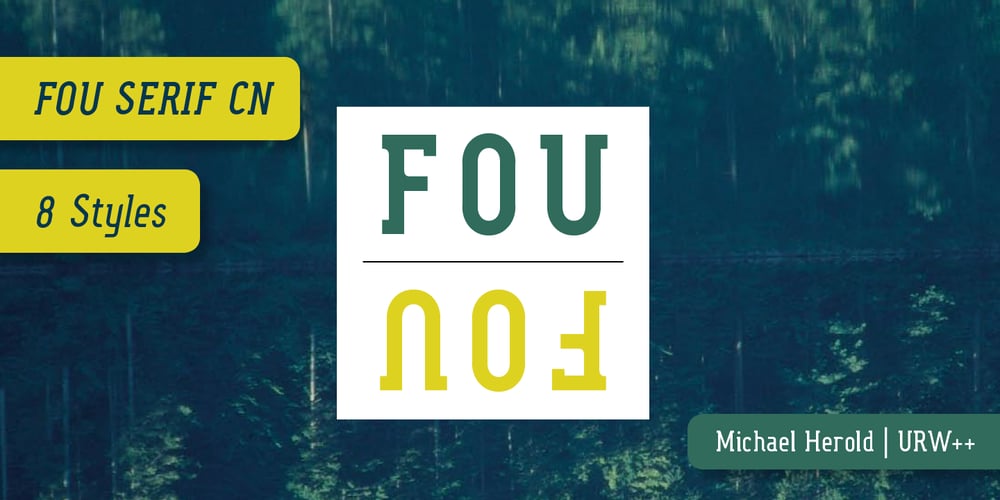
Fou Serif CN Font Family was designed by Michael Herold and published by URW Type Foundry. Fou Serif CN contains 8 styles and family package options. The “Fou” typeface family was designed as an alternative to “Trade Gothic condensed bold”. During the design process of a normally wide font variant a system developed that responds to white space and changing proportions. Thus, round transitions become rectangular and vice versa, space is made and space is taken away. This system and the associated changes are continued on a model with semi-serifs. “Fou” can also be used as an alternative to Din or the wider Q-Type, but in comparison offers more room for emphasis with its italics and condensed styles, expert sets and numerous special characters.